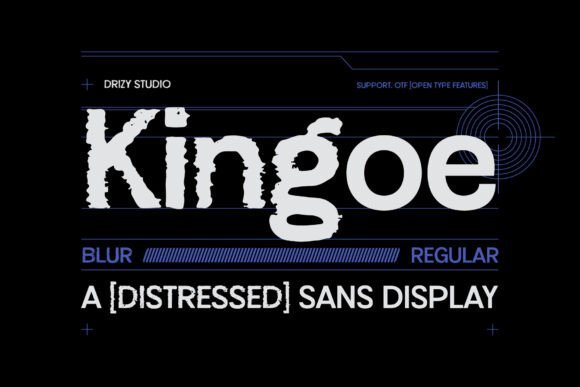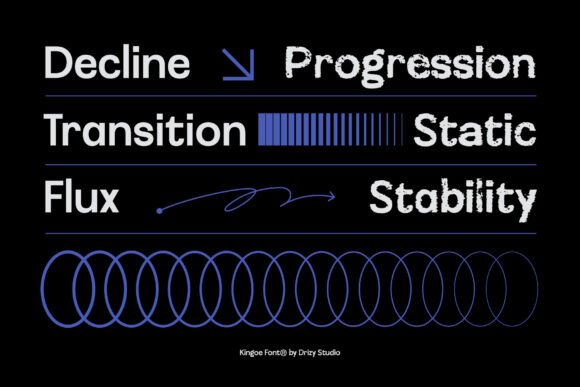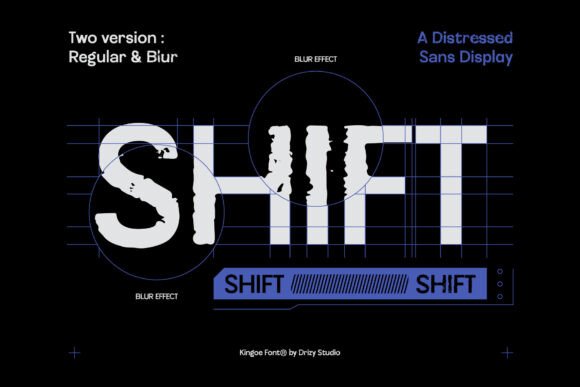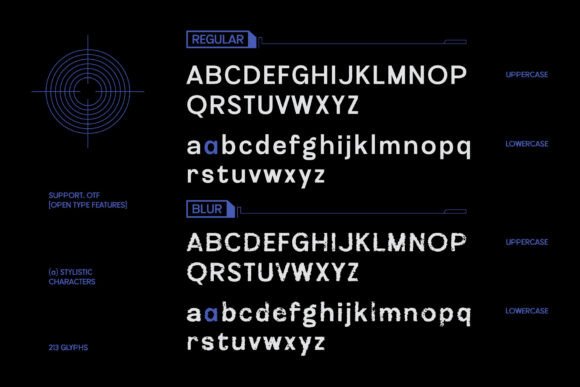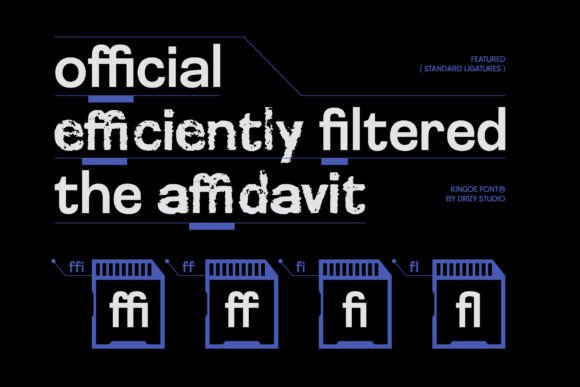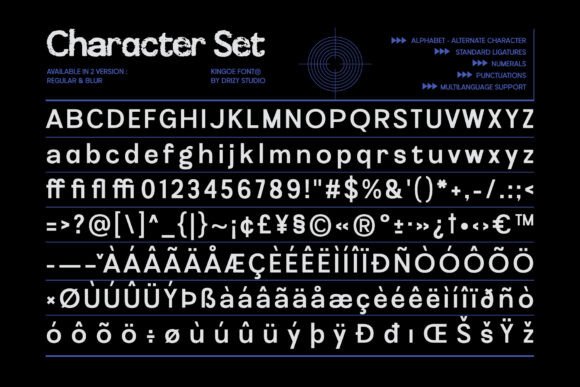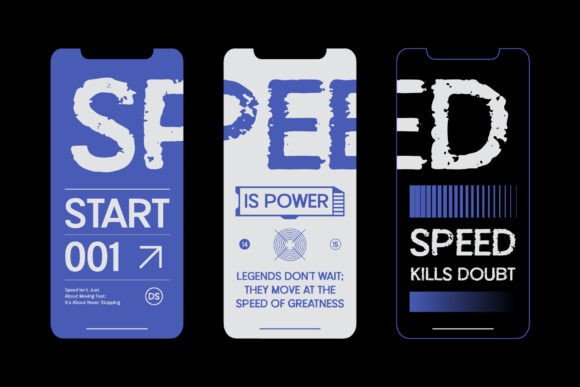
The Ultimate Typographic Rebel: Unleashing the Power of Kingoe Font
Have you ever stared at a blank page, waiting for that elusive spark of creativity to strike? You know, the moment when the ideas start flowing, and your design begins to take shape. For designers, that moment is everything. And what if we told you that the key to unlocking that creative potential lies in the bold, unconventional typography of the Kingoe Font?
Kingoe Font is more than just a design element – it’s a statement piece that adds a raw, rebellious energy to your work. Its distorted sans-serif style is perfect for pushing the boundaries of traditional design and making a lasting impression. Whether you’re working on a daring album cover or an edgy streetwear graphic, Kingoe Font is the ultimate tool for designers who dare to be different.
Kingoe Font Key Features
- Font Family: Kingoe is a sans-serif font family designed for digital use.
- Character Set: Supports a wide range of languages, including Latin, Cyrillic, Greek, and many others, making it a versatile choice for global applications.
- Unique Characteristics: Kingoe features a modern and clean design, with subtle rounded edges and a high x-height, making it highly legible in digital environments.
- Size: Available in multiple weights, ranging from Light to ExtraBold, allowing designers to choose the perfect weight for their project.
- Resolution: Designed for high-resolution displays, Kingoe looks sharp and clear at any size, from small mobile screens to large desktop monitors.
Designer Review: Kingoe Font
Overall, I think Kingoe Font is an interesting choice for typography enthusiasts. It’s a unique blend of modern and traditional elements that can add a touch of elegance to your design projects.
- ✨ Its versatility: Kingoe Font can be used in a variety of contexts, from formal to informal designs.
- ✨ Its distinctive feel: The font’s mix of rounded and geometric shapes creates a distinctive look that can help your design stand out.
- ✨ Its legibility: Despite its unique design, Kingoe Font remains easy to read, making it suitable for body text as well as headings.
- ⚠️ Limited character set: Kingoe Font’s character set is relatively limited, which may make it less suitable for projects that require a wide range of languages or special characters.
- ⚠️ Potential for overuse: The font’s distinctive design can be quite striking, but it may also become overwhelming if used too extensively.
Overall, I think Kingoe Font is a solid choice for designers who want to add some visual interest to their projects. While it may have some limitations, its unique design and versatility make it a great option for the right projects.
The Kingoe font is a versatile and modern sans-serif font that can be used across various platforms. To use the Kingoe font, follow these steps:
1. Use the Kingoe font consistently throughout your design or presentation to maintain a cohesive look.
2. Experiment with different font sizes and styles to create visual hierarchy and emphasis.
3. Pair the Kingoe font with other fonts or graphics to add depth and interest.
The Kingoe font is suitable for a wide range of applications, including:
1. Business presentations and reports.
2. Marketing materials and social media graphics.
3. Digital product design and user interface elements.
4. Branding and identity design.
Alternatives to Kingoe Font for Designers
Lato is a modern sans-serif typeface designed by Łukasz Dziedzic. It’s ideal for use in digital products, such as websites, apps, and software. Lato is a great choice for designers who want a clean and elegant font without the bold, condensed feel of Kingoe Font.
Comparison to Kingoe Font: Lato is more minimalist and versatile, making it suitable for a wide range of applications. It lacks the condensed feel of Kingoe Font, but maintains a similar level of sophistication.
Can I customize the Kingoe Font for my specific design needs?
While the Kingoe Font is designed to be highly versatile, it is not intended for major modifications. However, you can experiment with font pairing, size, color, and spacing to create unique visual effects. For more extensive customizations, consider consulting a professional type designer or font engineer.